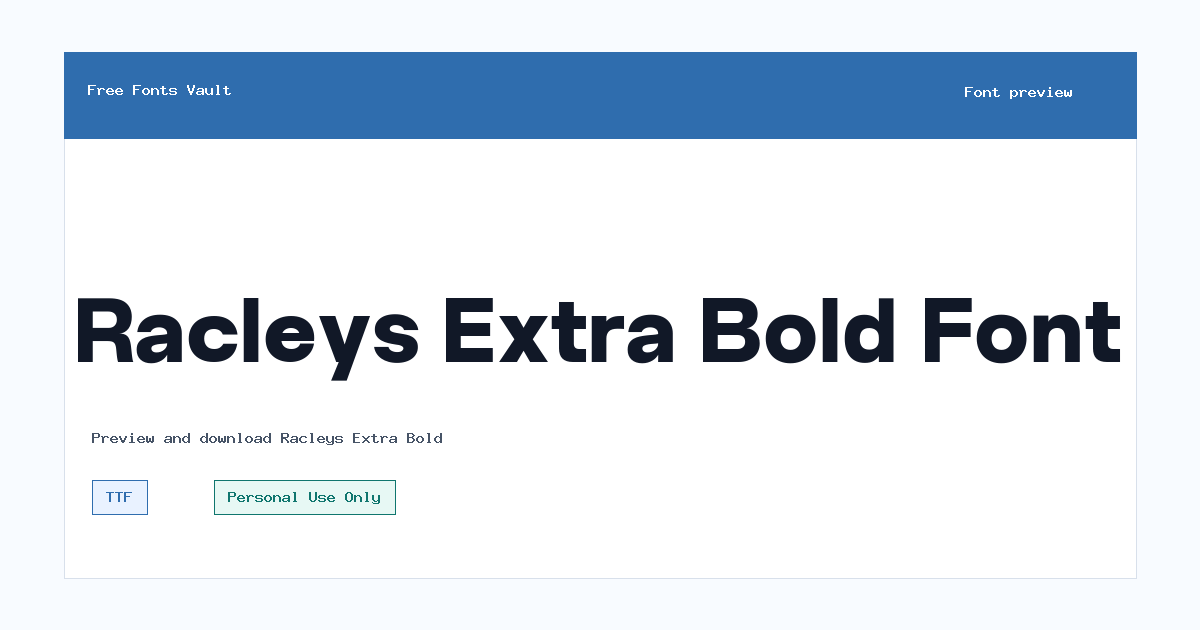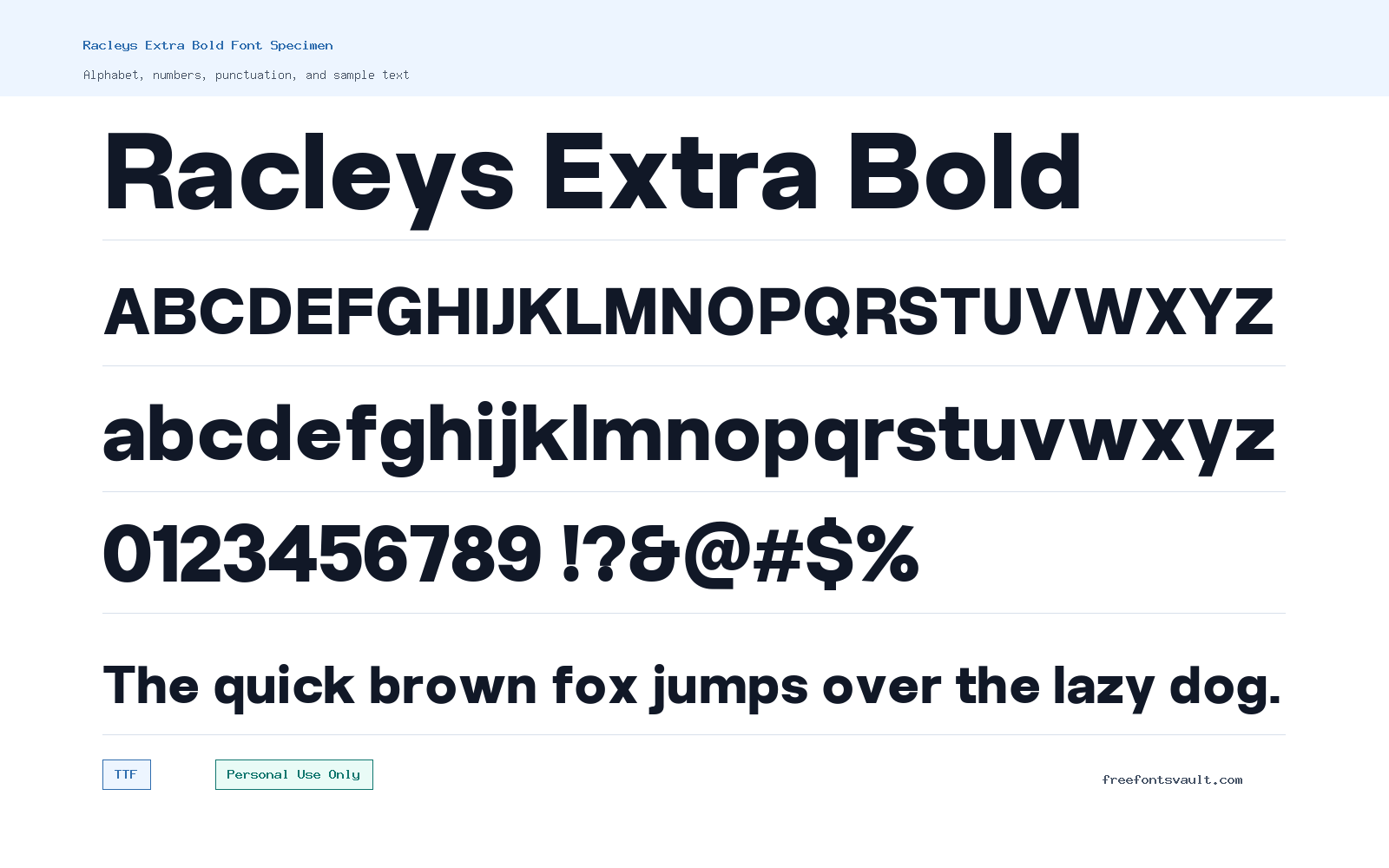
Racleys Extra Bold
- Designer Glyphminds Studio (Graphicted.Co)
Racleys Extra Bold is a heavy sans serif style from the Racleys family, designed for short, confident text where a clean geometric look matters. It is best treated as a display font for personal design work unless you have a separate commercial license.
About Racleys Extra Bold
Racleys Extra Bold has the clear structure of a modern sans serif with a strong, compact presence. The Extra Bold weight gives words a solid block of color, making it useful for headlines, title graphics, logo drafts, poster text, packaging mockups, and bold website hero sections. Its simple letter shapes make it easier to test than many decorative display fonts, especially when you need a strong wordmark-style look without script flourishes or novelty details. The style is most effective in short text, where the weight can create impact without tiring the reader.
For logo work, try Racleys Extra Bold with brand names, initials, short slogans, or uppercase lockups. Its clean sans serif structure can suit modern business, fashion, editorial, and product mockups, but the heavy weight should be tested carefully at small sizes. Wide tracking can help all-caps titles breathe, while tight spacing may work better for compact marks. For posters and social graphics, use it for the main phrase and keep supporting information in a lighter, quieter typeface. On web mockups, it can work well for large hero headings, buttons, section labels, or campaign titles, but long paragraphs should use a more comfortable text font.
- Heavy sans serif appearance suited to short display text, headlines, logo drafts, and poster titles.
- Part of the wider Racleys font family, which is shown by font sources with multiple weights and italic styles.
- Clean geometric look that pairs best with simple supporting typefaces rather than busy decorative fonts.
- Logo concepts and wordmark tests for personal projects
- Poster headlines, event graphics, and bold title layouts
- Website hero mockups, landing-page headings, and UI presentation comps
- Social media graphics, cover images, and campaign-style text
- Packaging, label, fashion, editorial, and branding mockups where a clean heavy sans serif fits
Use Racleys Extra Bold where the text is short and meant to be noticed. Test uppercase, lowercase, numbers, and punctuation in the preview before downloading, especially if your design uses names, prices, dates, or symbols. For font pairing, keep the supporting font simple: a neutral sans serif can handle body copy, captions, and navigation while Racleys Extra Bold carries the main title. Avoid using this weight for long paragraphs or dense interface text because the heavy strokes can reduce comfort at smaller sizes.
What kind of font is Racleys Extra Bold?
It is a heavy sans serif display style with a clean geometric look. It is best for short text such as headlines, logo concepts, posters, and web mockup titles.
Who designed Racleys Extra Bold?
The designer is listed as Glyphminds Studio (Graphicted.Co). Other font sources also connect the Racleys family with glyphminds and Graphicted.
Is Racleys Extra Bold good for body text?
It is better for display use than long reading. The heavy weight works well for short headings, but body text should usually use a lighter, more readable font.